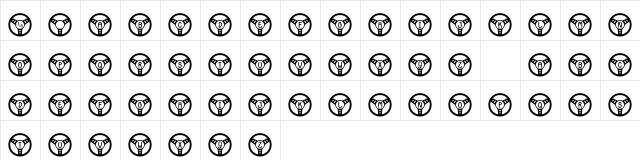
JLR Li'l Bit Drives Regular
Design Context for JLR Li'l Bit Drives Typeface
JLR Li'l Bit Drives is a composed and adaptable typeface that performs quietly and consistently across a wide range of design contexts.